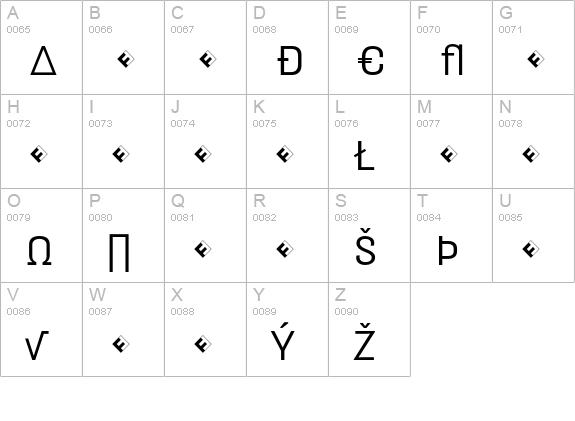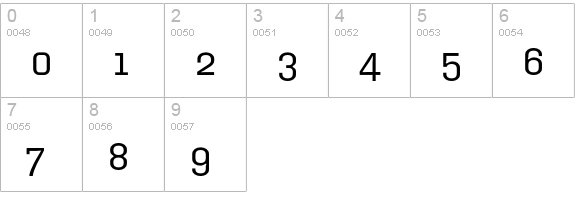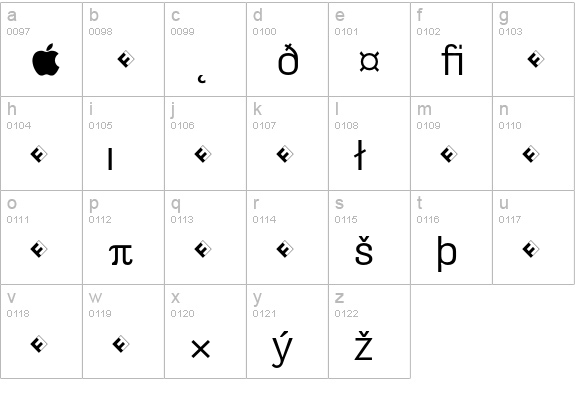
HydraText-RegularExpert font is a versatile and modern typeface that combines elegance with readability. Its clean lines and balanced proportions make it a perfect choice for various design projects, from branding to editorial design. The font features a timeless style that is both professional and approachable, making it suitable for a wide range of applications. One of the best things about HydraText-RegularExpert font is that it is available for free download at FontsMarket.com. This means that you can easily access and use this high-quality font in your projects without any cost. Whether you are a designer looking for a new typeface to add to your collection or a business owner in need of a stylish font for your branding materials, HydraText-RegularExpert font is a great choice. With its modern aesthetic and excellent readability, HydraText-RegularExpert font is sure to elevate the look of any project it is used in. Download this font for free today and see for yourself the impact it can make on your designs.